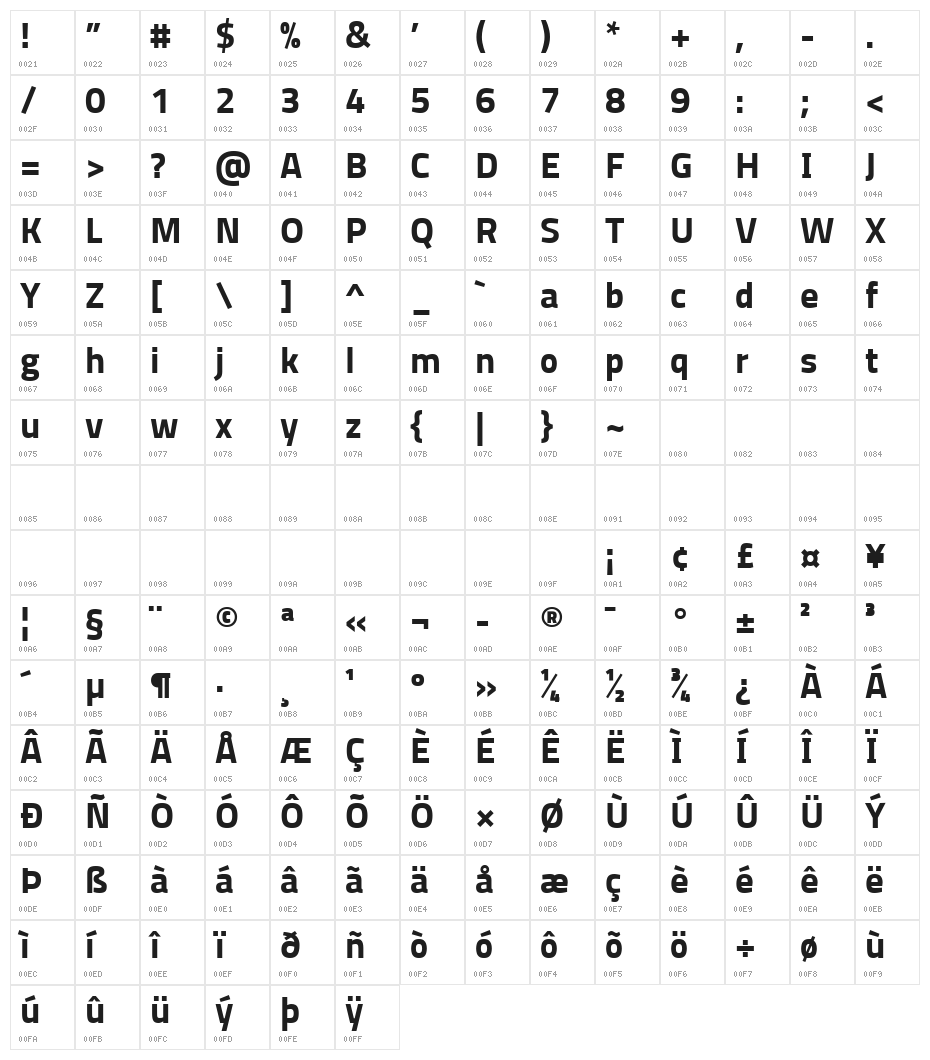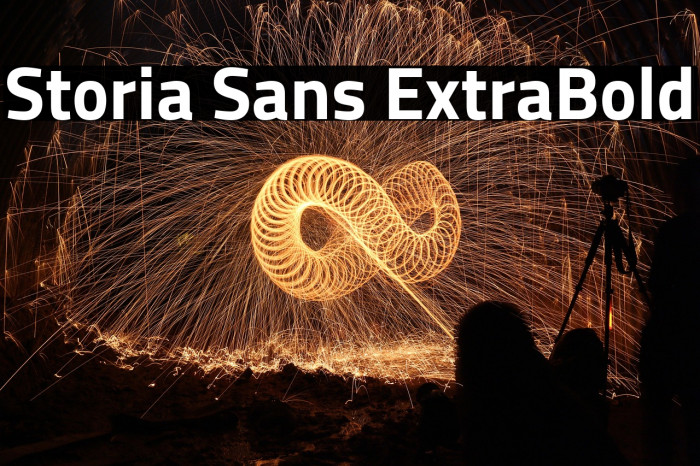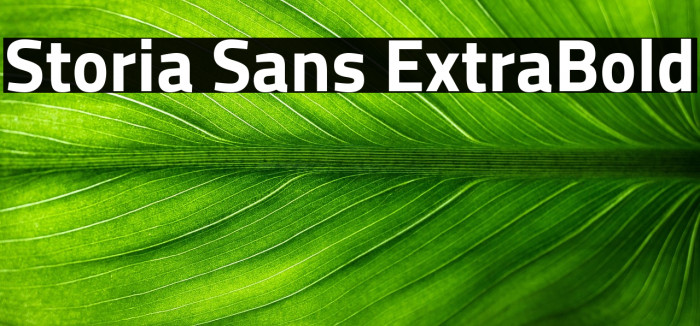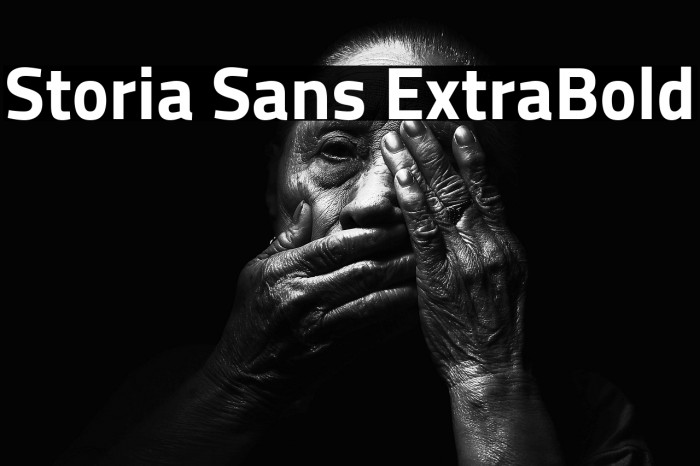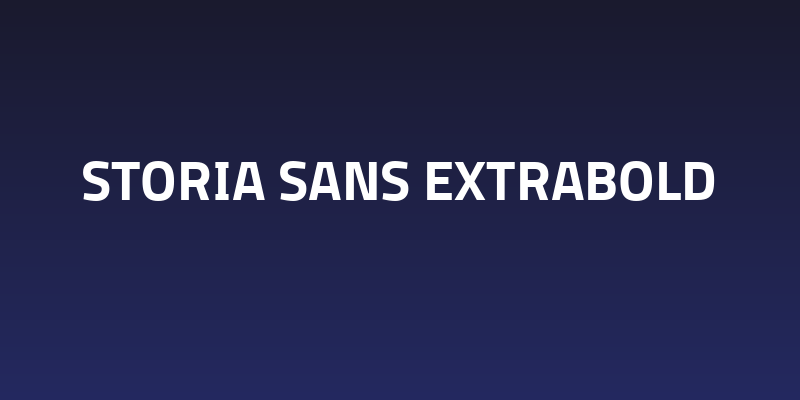
Storia Sans ExtraBold Font
Storia Sans ExtraBold Description
This typeface features a bold and assertive sans-serif style, characterized by its strong geometric shapes and clean lines. The uppercase letters are uniform in height, providing a sense of stability and balance. The lowercase letters maintain a consistent x-height, contributing to the font's readability. The numerals are clear and distinct, making them suitable for various applications. The special characters are well-integrated, ensuring versatility in design. Overall, this font exudes a modern and professional appearance, making it ideal for impactful headlines and branding.